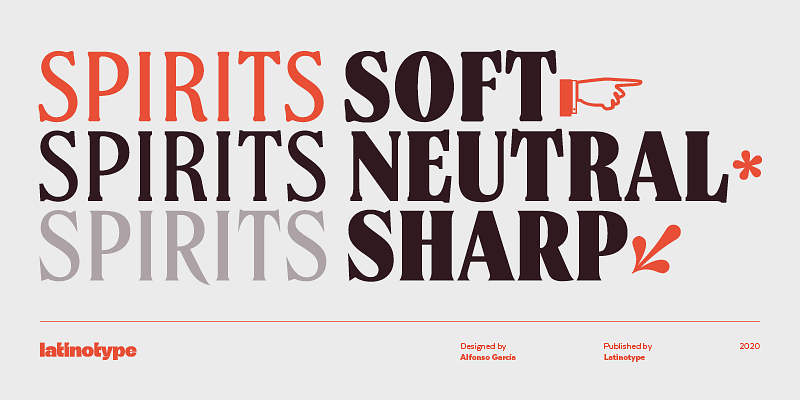
Spirits Font excels in various design applications including mystical brand identities, ethereal spiritual logos, haunting Halloween materials, ghostly entertainment signage, supernatural book covers, spiritual wellness communications, mysterious advertising campaigns, and transcendent cultural presentations. This ethereal typeface adapts mystically to both spiritual digital platforms and supernatural print materials, making it perfect for designers seeking spiritual authenticity and mystical sophistication in their visual communications.
Spirits Font generates excitement among design professionals due to its ethereal character and spirit-inspired styling that instantly conveys mystery and supernatural atmosphere. The font's ghostly letterforms and mystical proportions create an immediate sense of spiritual energy and otherworldly presence. Its transcendent personality makes it particularly appealing for brands wanting to communicate spiritual connection, mystical atmosphere, and supernatural experiences in their visual identity.
The Spirits Font family encompasses multiple weights and styles including Regular, Bold, Light, Ethereal, and Mystical variations. Each family member maintains spiritual design principles while offering distinct supernatural characteristics. The Light weight provides subtle ethereal elegance for refined applications, while the Mystical version delivers maximum impact for spiritual headlines and supernatural brand statements.
Mystical designers frequently choose Spirits Font Free Download for projects requiring both spiritual authenticity and ethereal distinction. This typeface demonstrates exceptional effectiveness across spiritual industries including wellness centers, mystical organizations, entertainment venues, and supernatural brands. Its ethereal character allows businesses to communicate spiritual connection while maintaining excellent readability and mystical visual appeal that captures the essence of spiritual energy and celebrates the mysterious beauty of supernatural experiences.